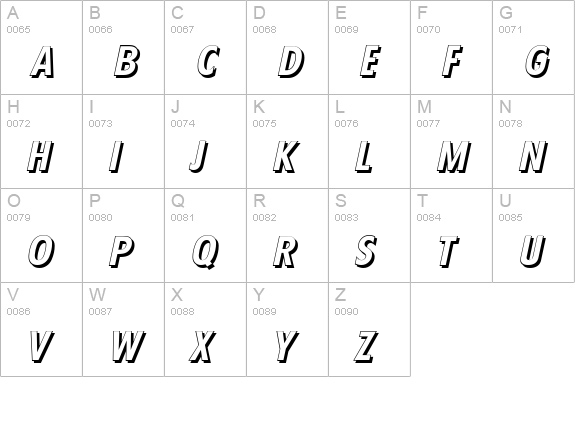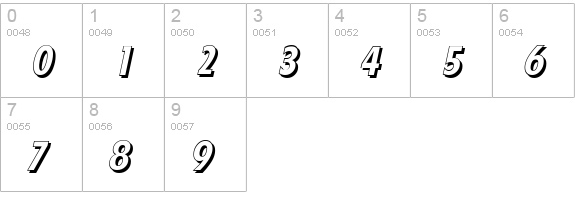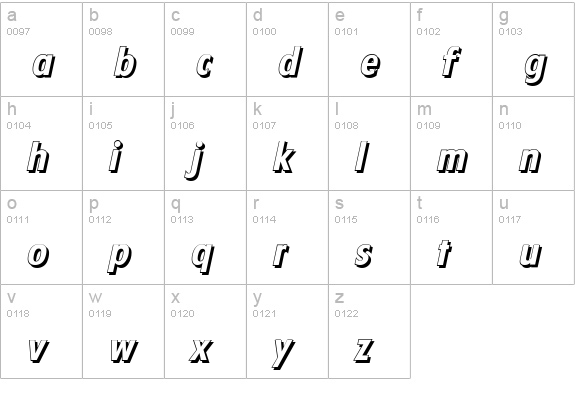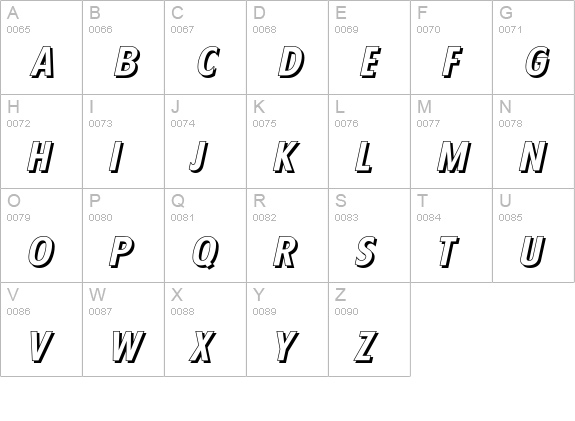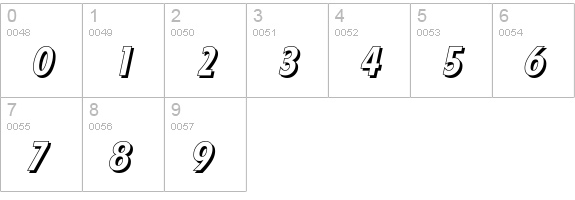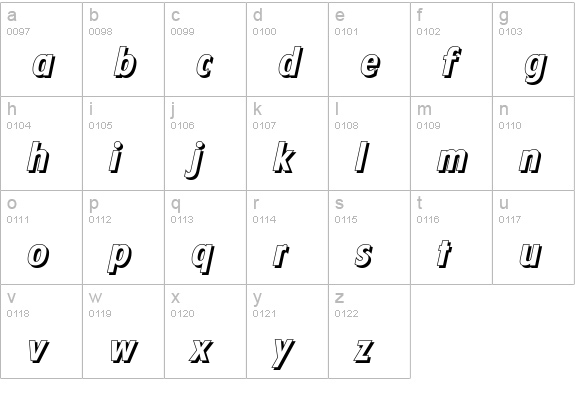
FloridaShadow-BoldItalic Font Details
FloridaShadow-BoldItalic font is a striking and elegant typeface that exudes a sense of sophistication and modernity. Its bold yet flowing italic design adds a touch of flair to any project, making it perfect for headers, logos, and other prominent text elements. The unique shadow effect gives the font a three-dimensional appearance, adding depth and visual interest. Best of all, FloridaShadow-BoldItalic font is available for free download at FontsMarket.com. This means you can easily access this versatile and eye-catching font to elevate your designs without any cost. Whether you're working on a creative project or a professional presentation, FloridaShadow-BoldItalic font is sure to make a statement and leave a lasting impression. Download it now and add a touch of elegance to your next design endeavor.